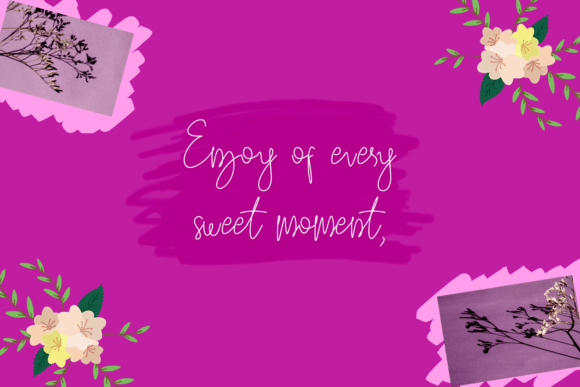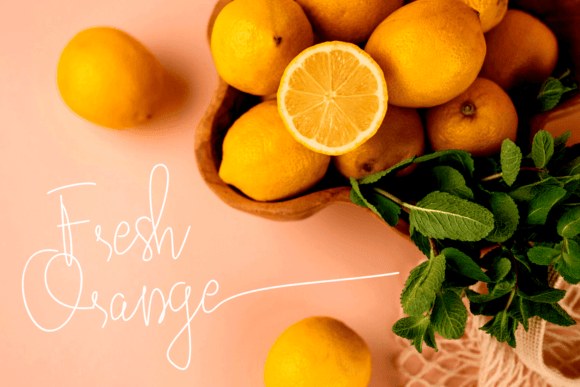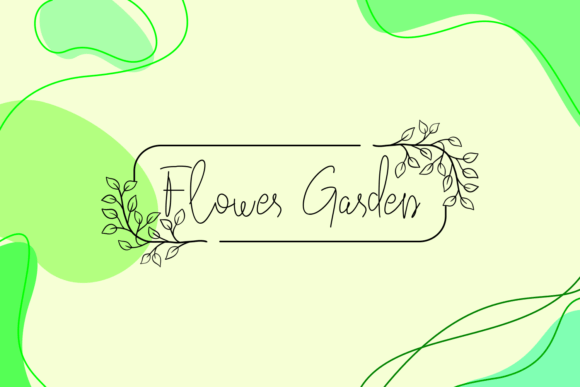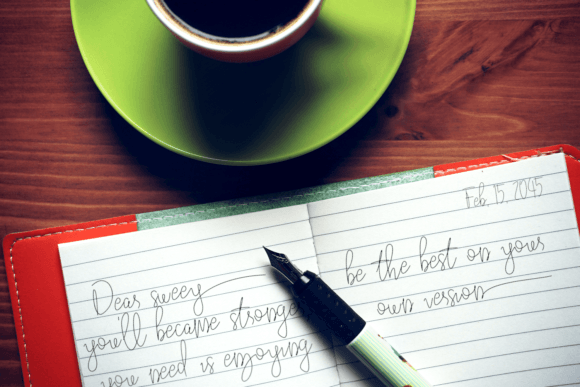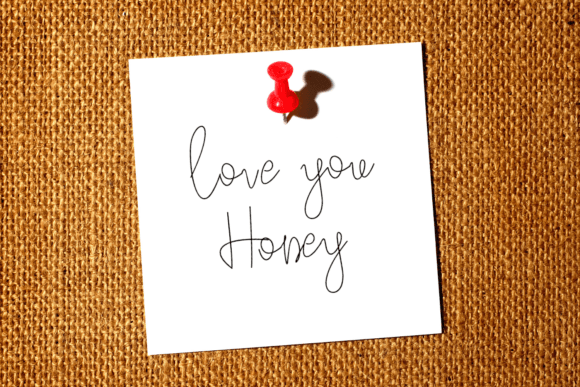
The Ayesha Font: A Fun and Friendly Companion for Your Design Journey
I still remember the time I was working on a project for a client who wanted a playful and whimsical feel. I had a clear vision of what I wanted to create, but I was struggling to find the right font to bring it all together. That’s when I stumbled upon the Ayesha font, and it was love at first sight! ✨ The unique charm and friendly vibe of this handwritten font instantly resonated with me, and I knew I had found the perfect companion for my design journey.
What I Love About Ayesha
- ✨ Unique and playful character that adds a touch of personality to any design
- ✅ Extensive range of OpenType features, including glyphs and stylistic alternates
- ✅ Perfect for a wide range of design projects, from branding and packaging to social media graphics and more
While Ayesha is an amazing font, there are a few things to keep in mind: 🤔
- ⚠️ Some of the more intricate glyphs and swashes may not display properly on all devices or platforms
- ⚠️ May not be the best choice for very formal or corporate designs, as it has a distinctly playful feel
The Story Behind Ayesha
Ayesha was designed by a talented type designer who wanted to create a font that would bring a touch of playfulness and personality to any design. Inspired by the charm of handwritten scripts and the versatility of modern digital fonts, Ayesha was born. With its unique character and extensive range of OpenType features, Ayesha has quickly become a favorite among designers and crafters.
Q: What is the Ayesha font?
A: Ayesha is a fun and friendly handwritten font designed to add a touch of personality to any design.
Q: What kind of designs is Ayesha best suited for?
A: Ayesha is perfect for a wide range of design projects, from branding and packaging to social media graphics and more.
Q: Is Ayesha easy to read?
A: Yes, Ayesha is highly legible, even at smaller font sizes, making it perfect for body text and other applications where readability is key.